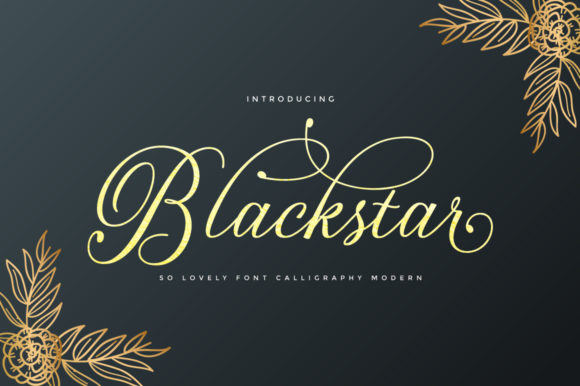
Blackstar Font: A Journey Through the Stars of Calligraphy
In a world where fonts are often seen as mere tools, Blackstar Font emerges as a celestial wonder, a radiant constellation of letterforms that will illuminate your design endeavors. Crafted with the utmost care by the skilled artisans at Cooldesignlab, Blackstar Font is a script font of unparalleled beauty and intrigue, its every stroke a testament to the power of imagination.
With its graceful curves and elegant flourishes, Blackstar Font takes you on an interstellar journey through the cosmos of calligraphy. Its letters dance across the page like shooting stars, leaving a trail of shimmering light in their wake. The meticulously crafted details, from the delicate serifs to the sweeping terminals, create a sense of wonder and enchantment that is sure to captivate your audience.
Let Blackstar Font guide you through a universe of creative possibilities. Its versatile nature makes it the perfect choice for a wide range of projects, from whimsical invitations to captivating logos, from enchanting social media posts to heartfelt letters. Whether you're a seasoned designer or just starting your creative journey, Blackstar Font will elevate your work to new heights, adding a touch of magic to every word you write.
Embrace the cosmic beauty of Blackstar Font and watch as your designs take on a life of their own. Like a constellation in the night sky, Blackstar Font will illuminate your work with a brilliance that will leave your audience spellbound. Soar through the heavens of creativity with Blackstar Font, and let your designs shine like stars.